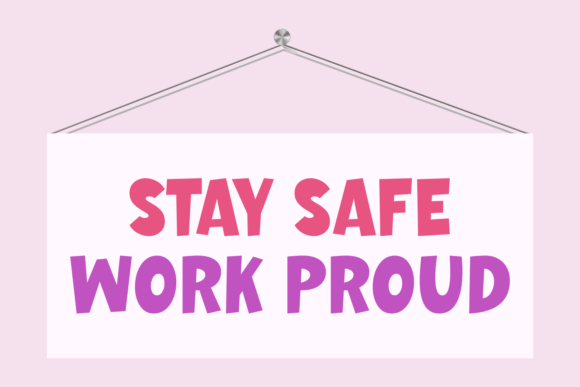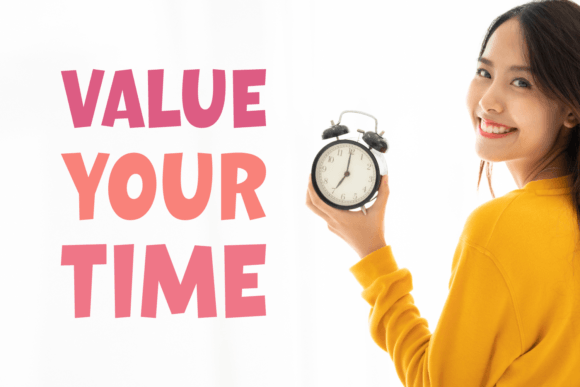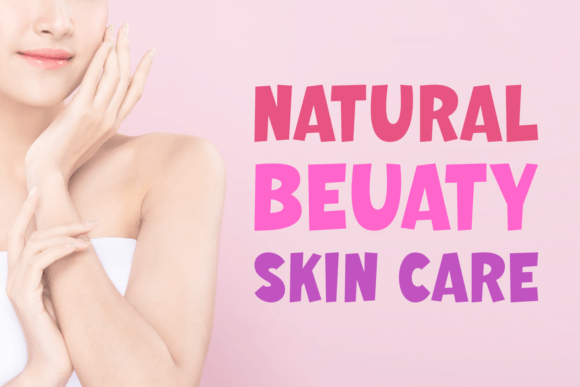
Introduction to Pinky Thing Font
Breathe a sense of playfulness into your creations with Pinky Thing, an expressive display font.
Its clean lines are imbued with charm while remaining bold to command attention Ideal for T-shirt typography, unique tote bags, eye-catching product packaging, and lively sticky note reminders.